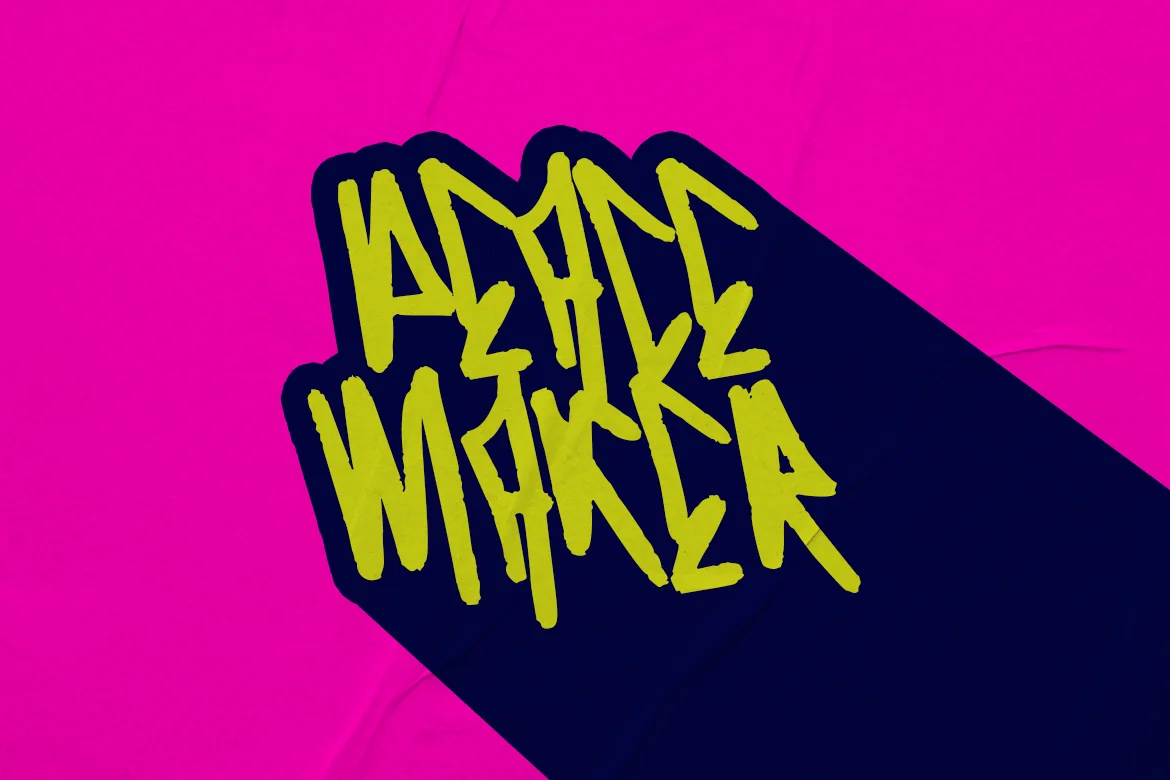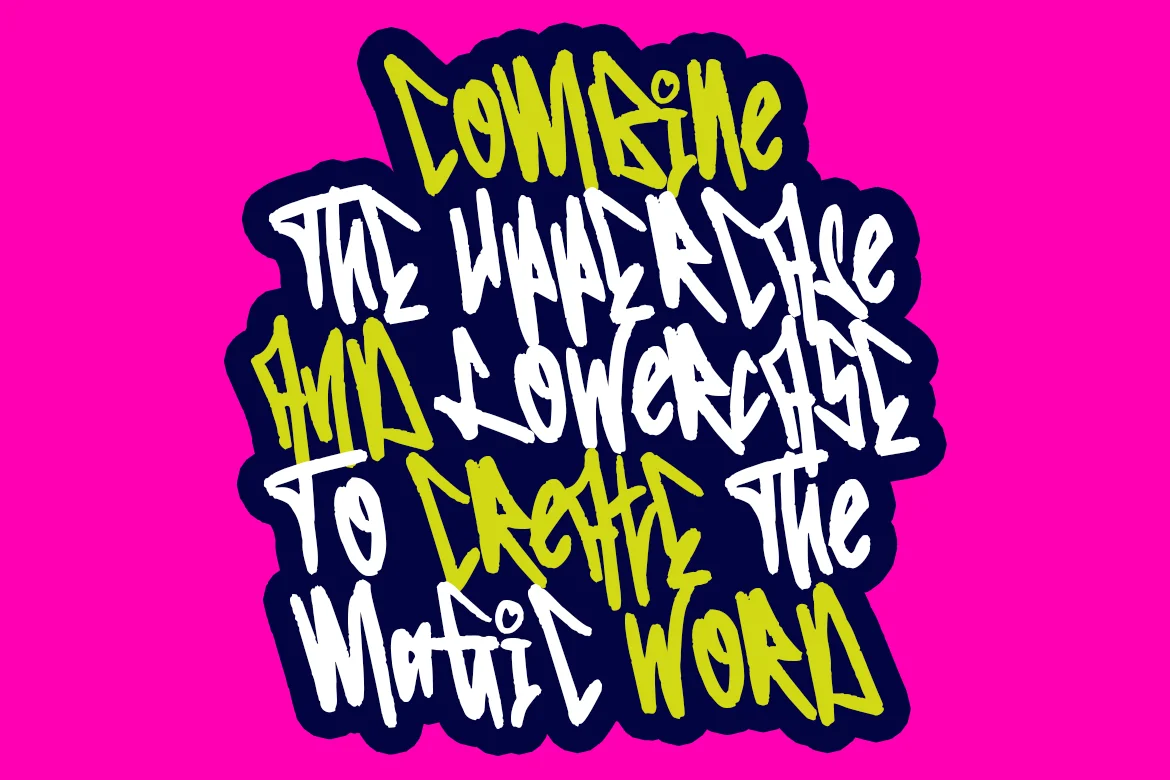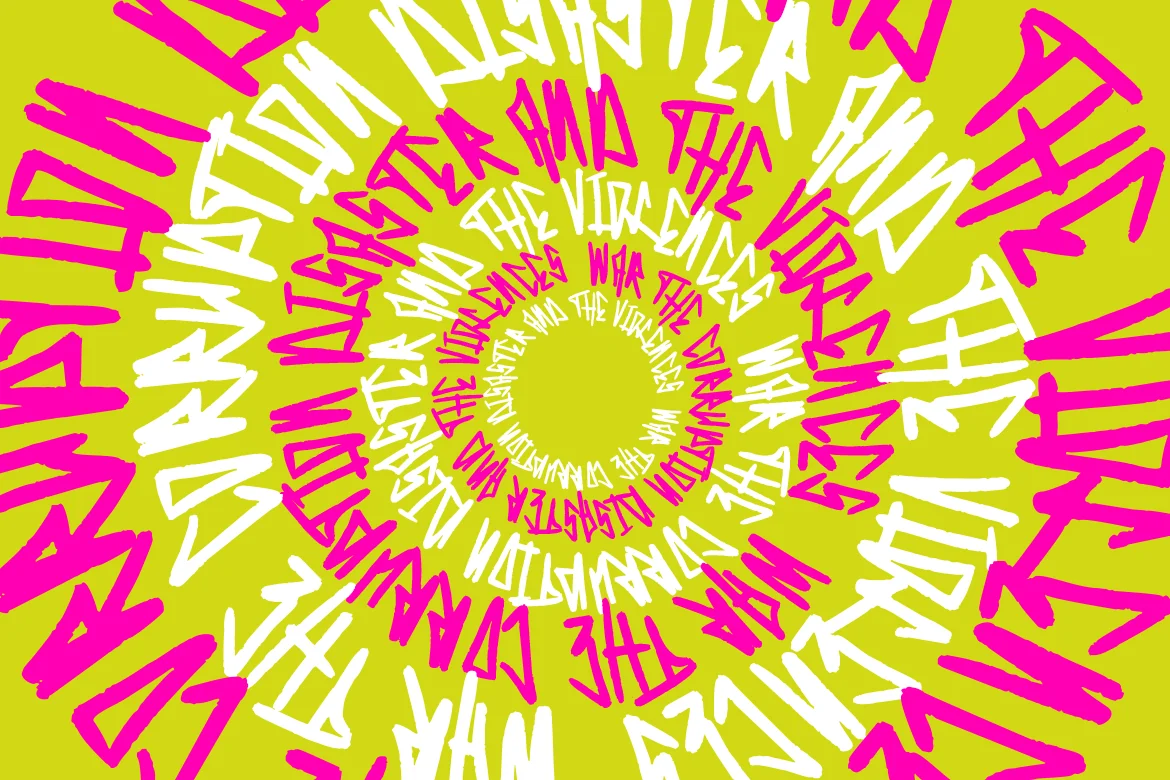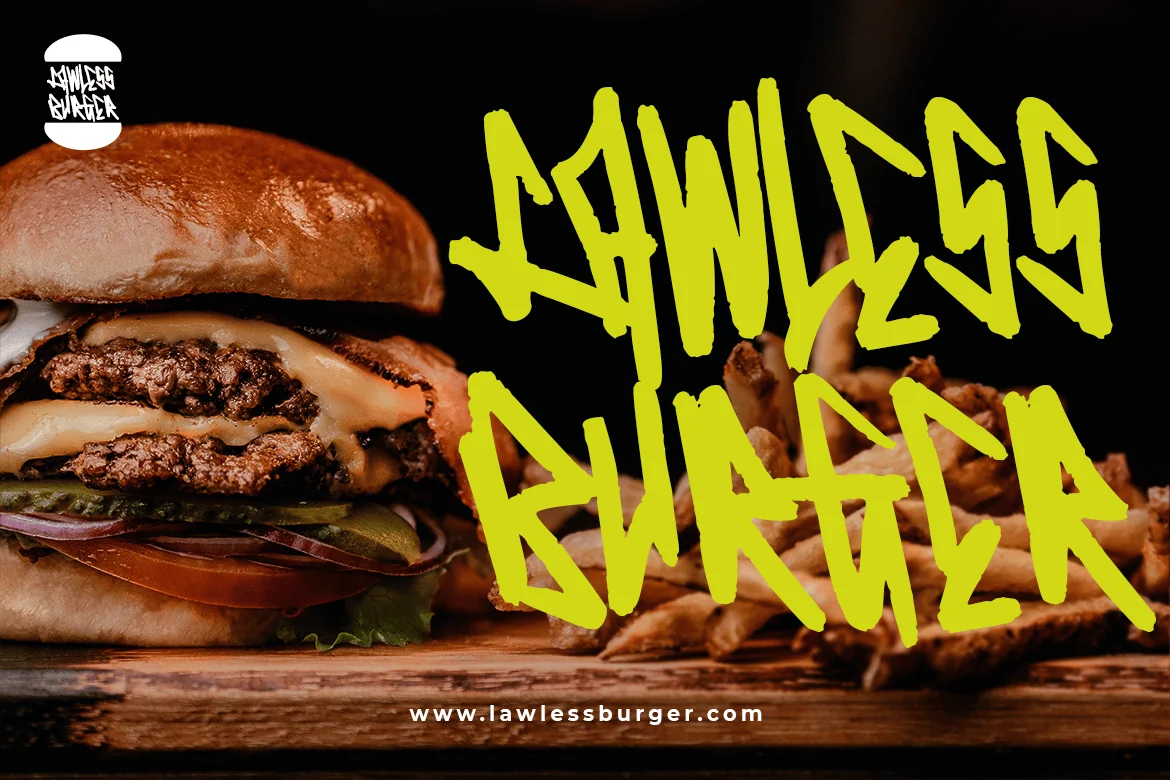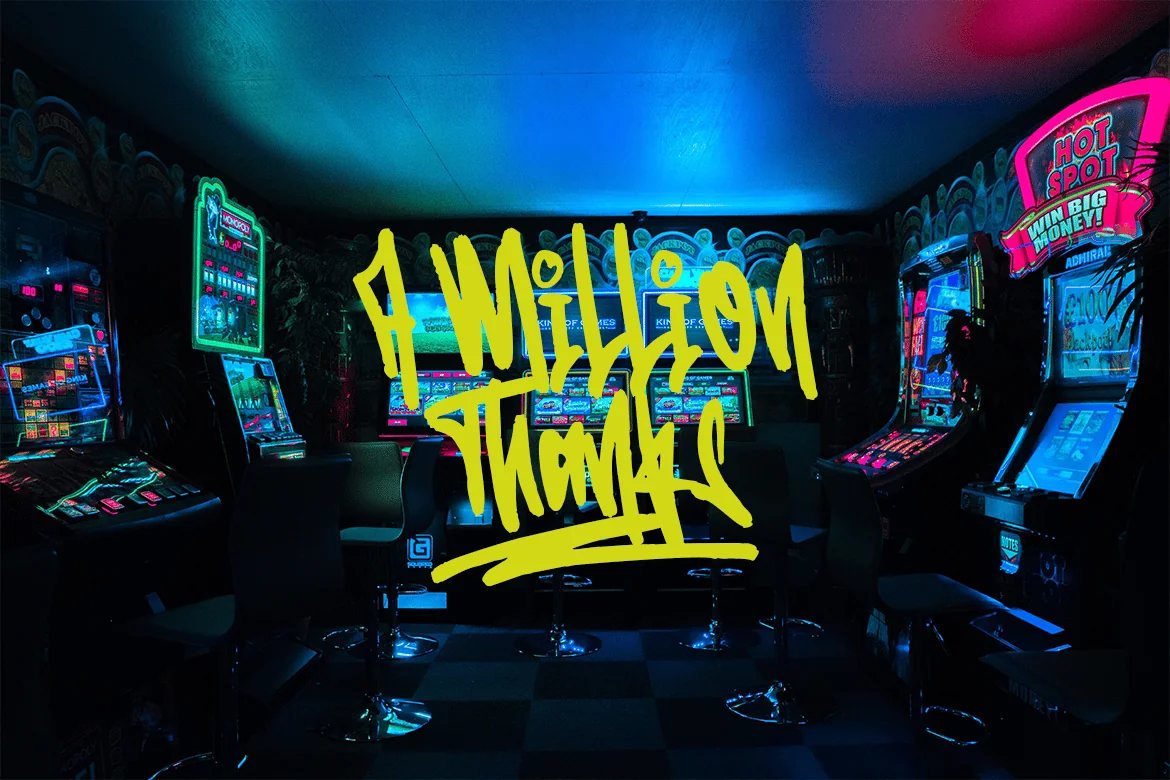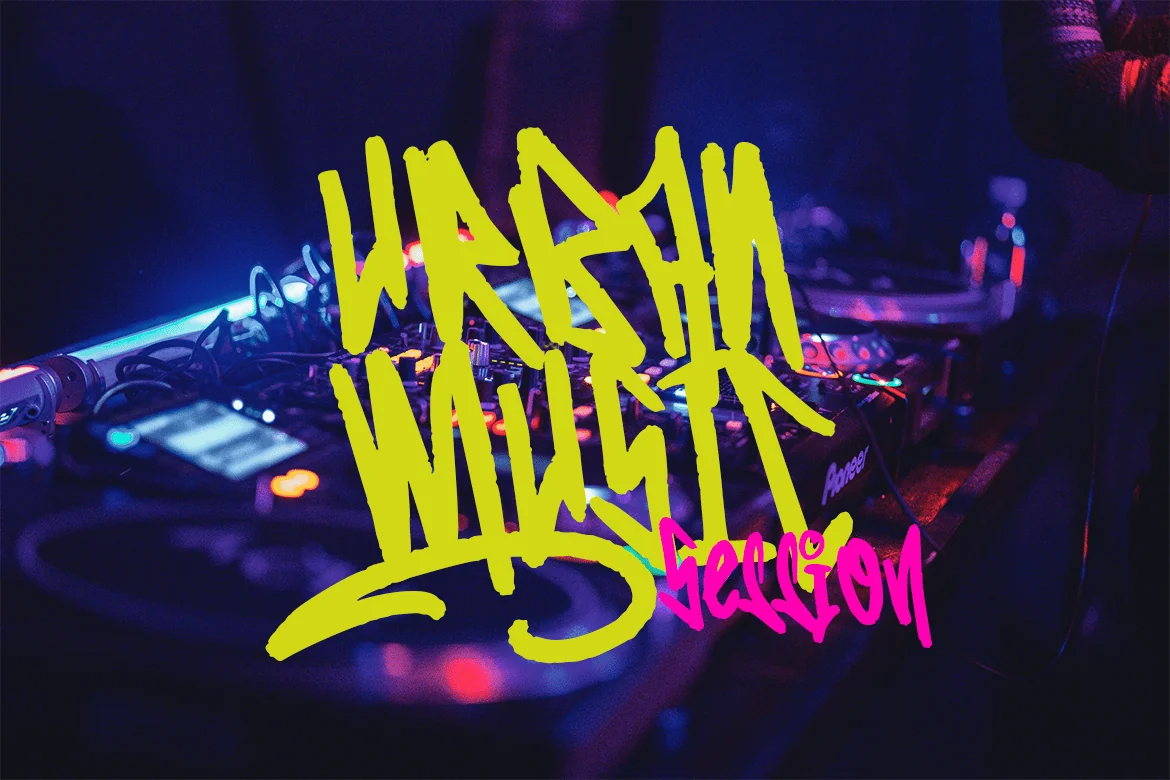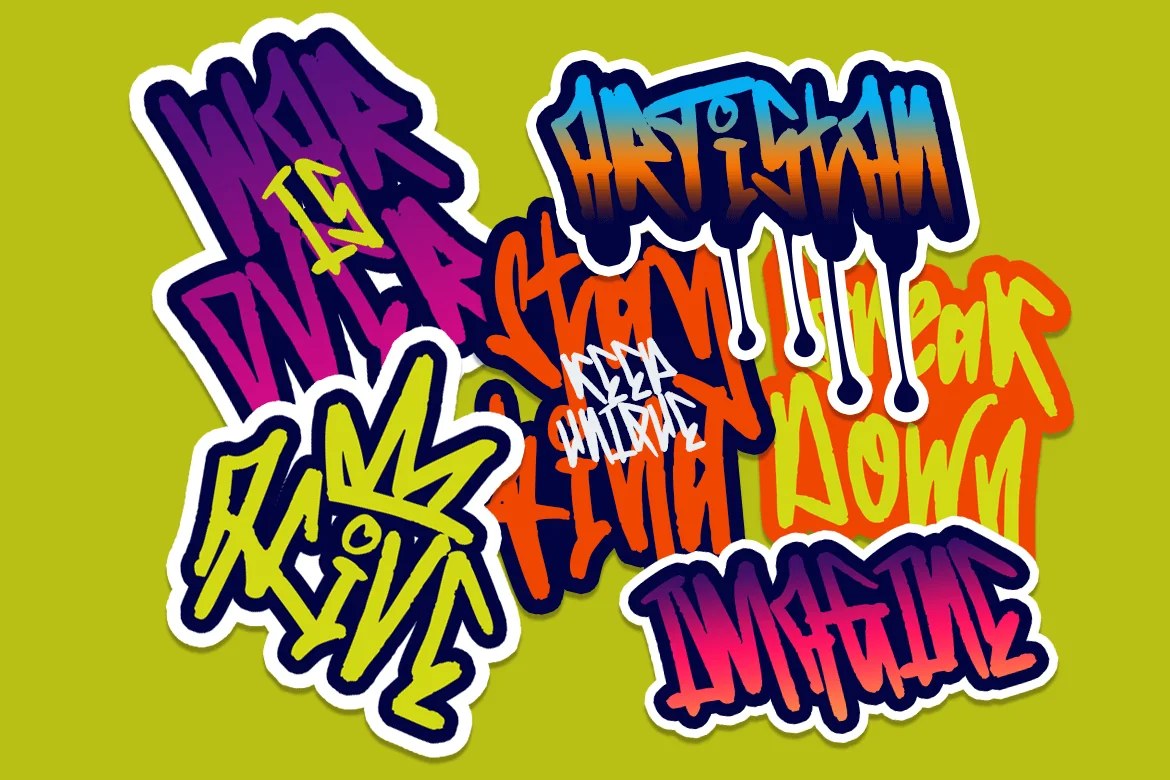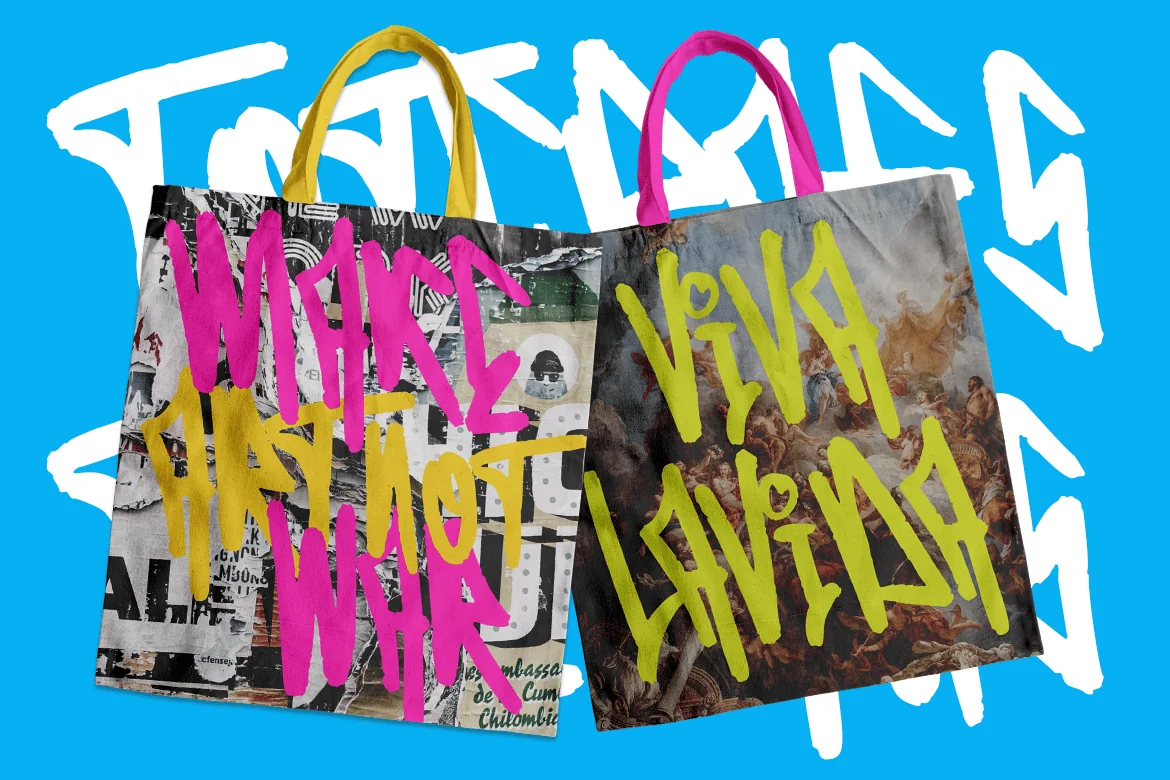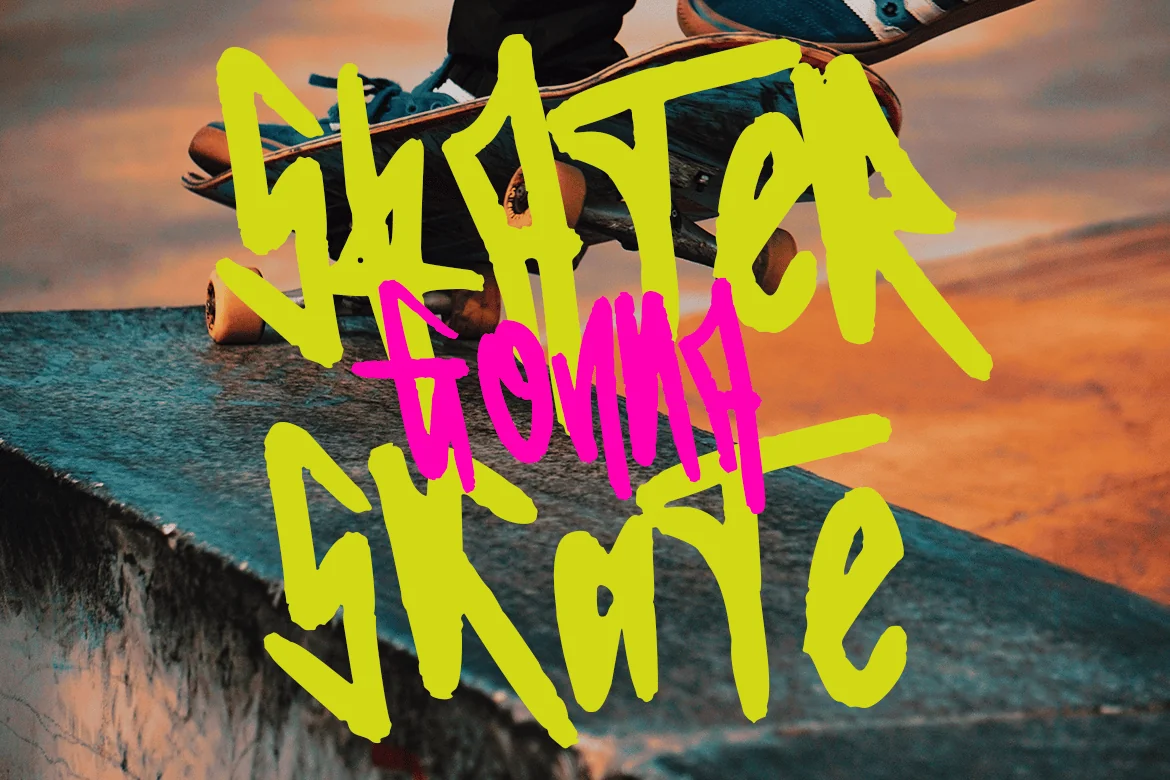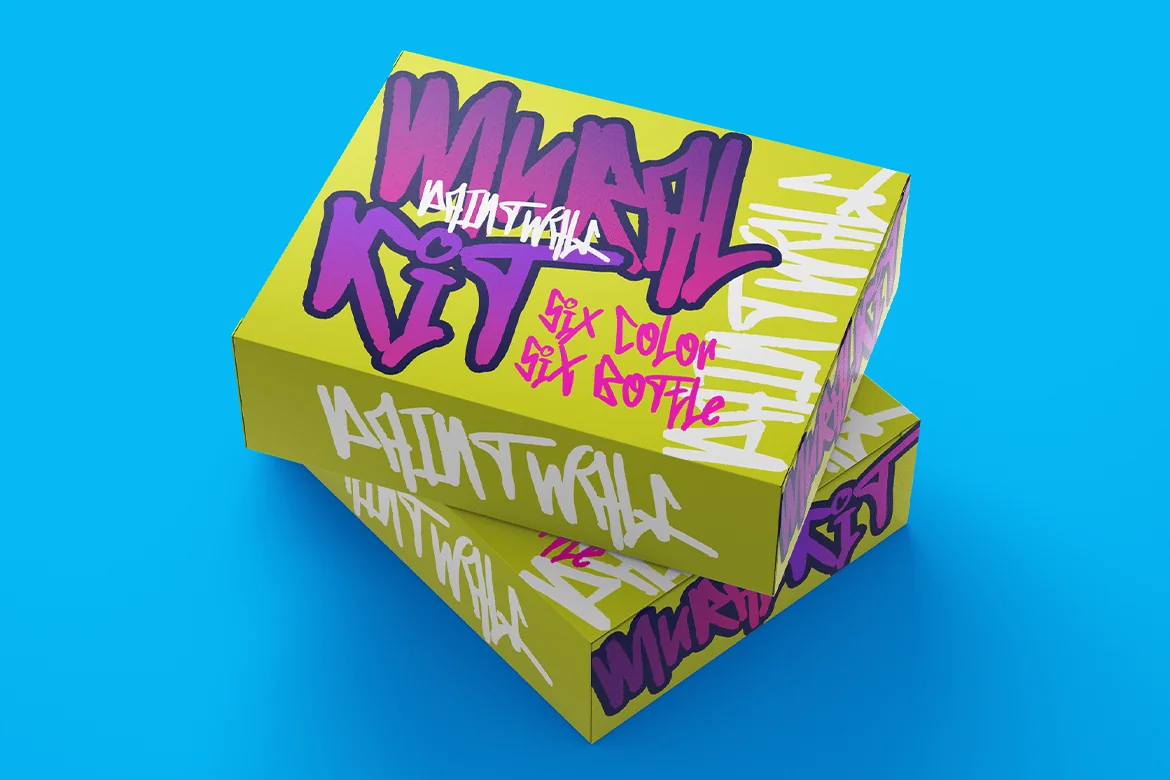
Edcosmic – An Urban Art Graffiti Font
Edcosmic is An Urban Art Graffiti Font that is suitable for design projects; graffiti theme, logo, branding, poster, music, urban art, quotes, display, eye-catching social media posts, and any other designs.
Some Swashes
Full uppercase and lowercase glyphs